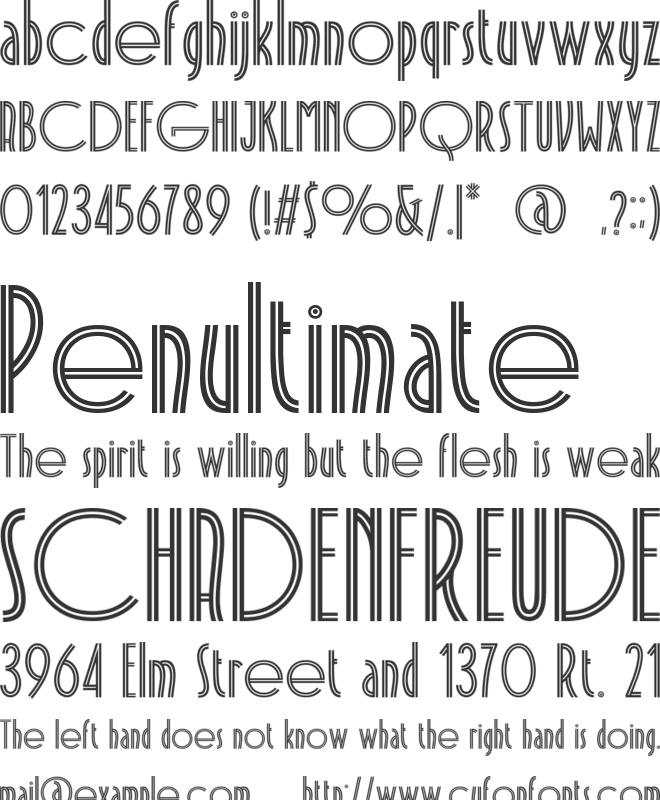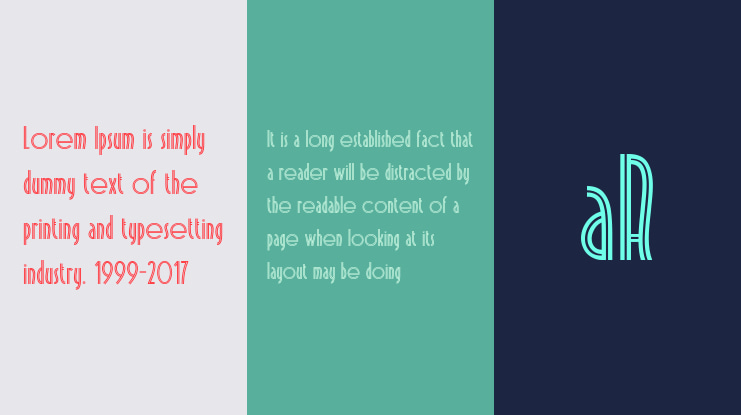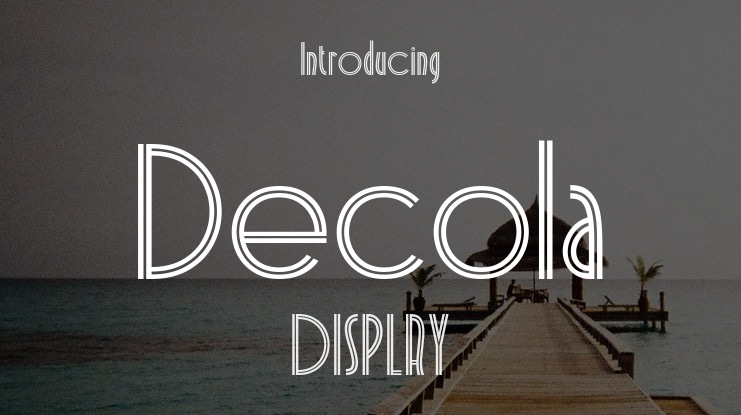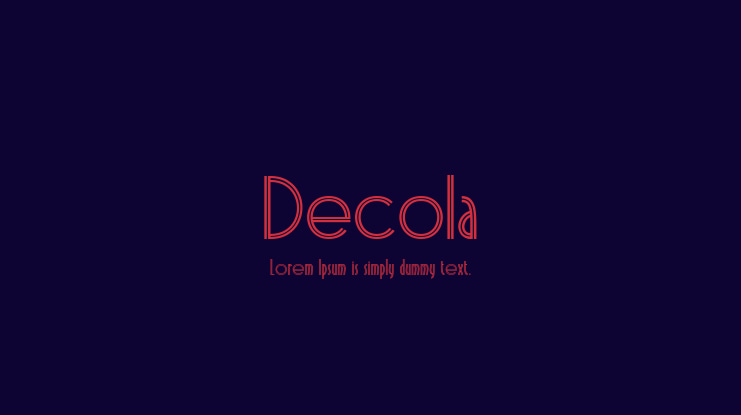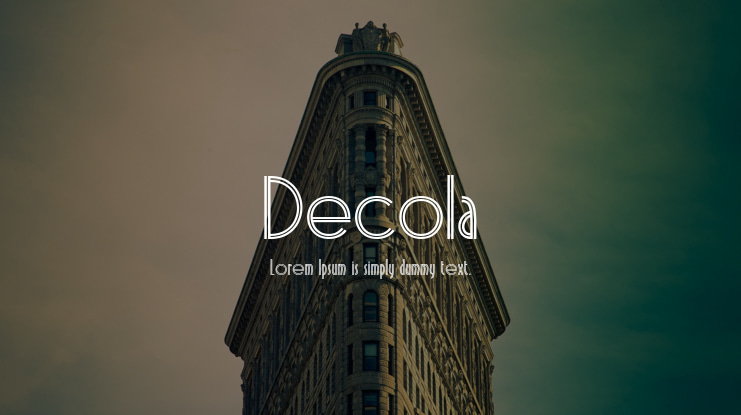
Decola Font
Decola Art Deco Typeface
The Decola Art Deco Typeface is a stunning combination of elegance and vintage appeal, drawing inspiration from the bold and lavish aesthetics of the Art Deco era. This distinctive typeface features a dynamic two-line structure that imparts a sense of sophistication and movement, making it perfect for contemporary designs meant to evoke timeless luxury.